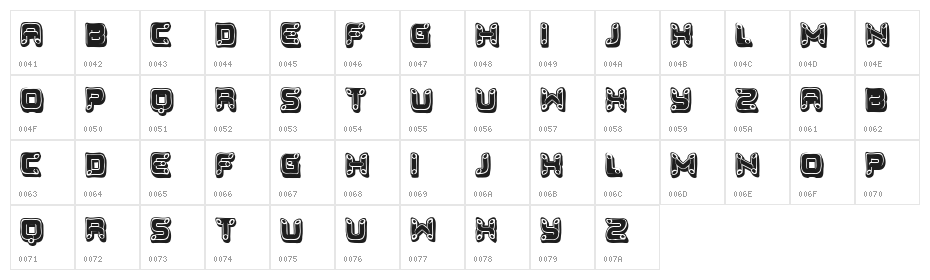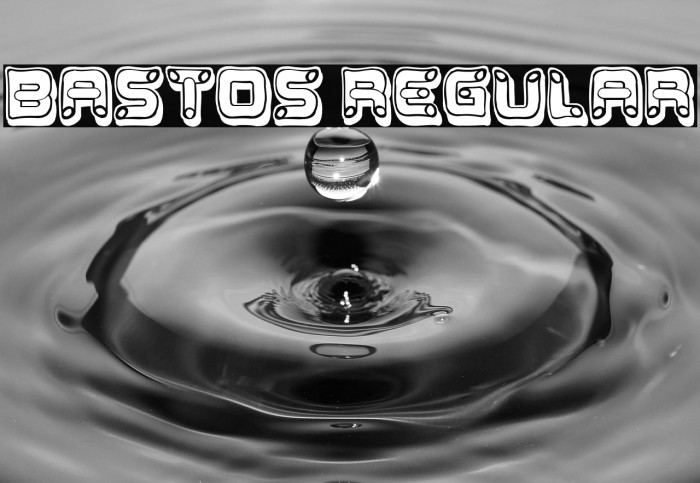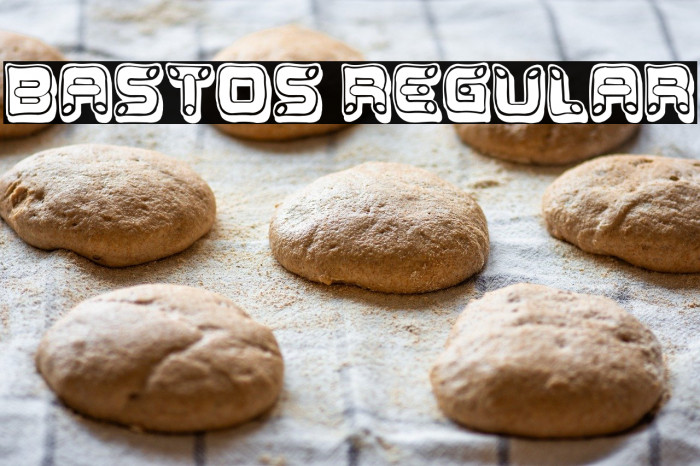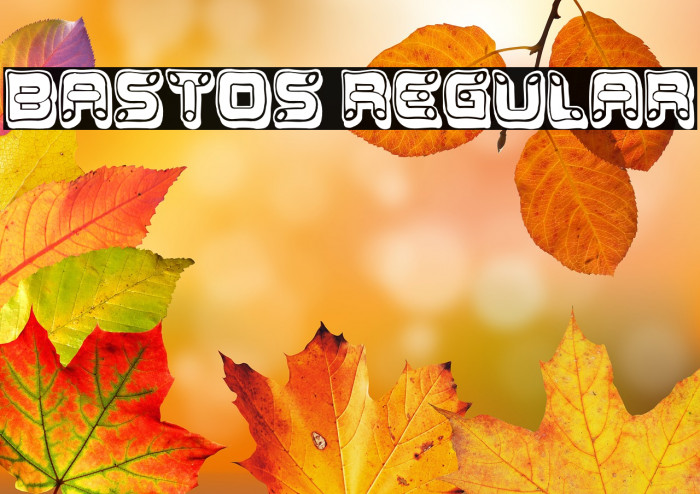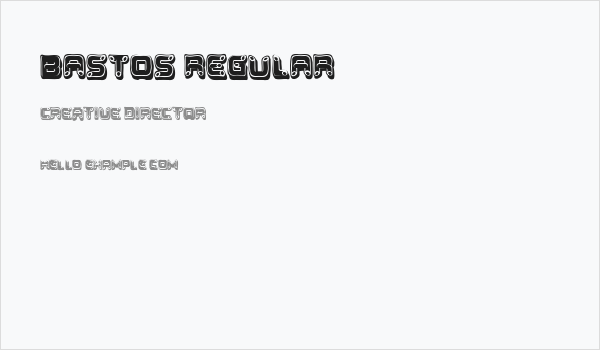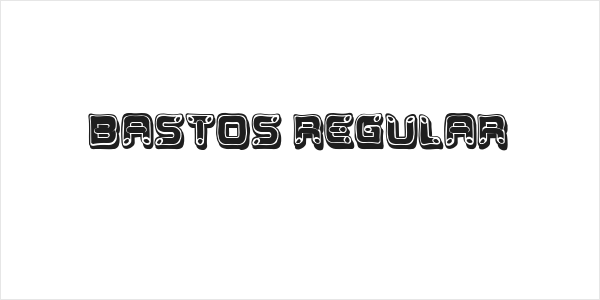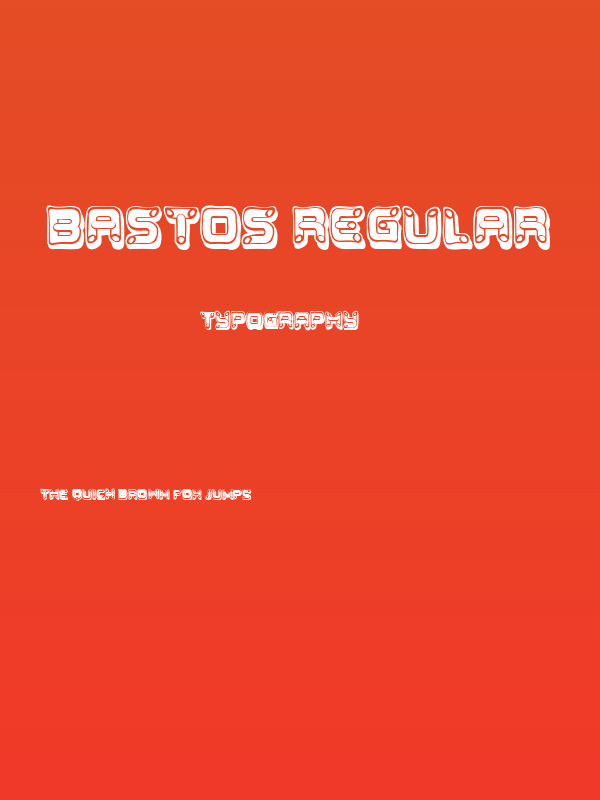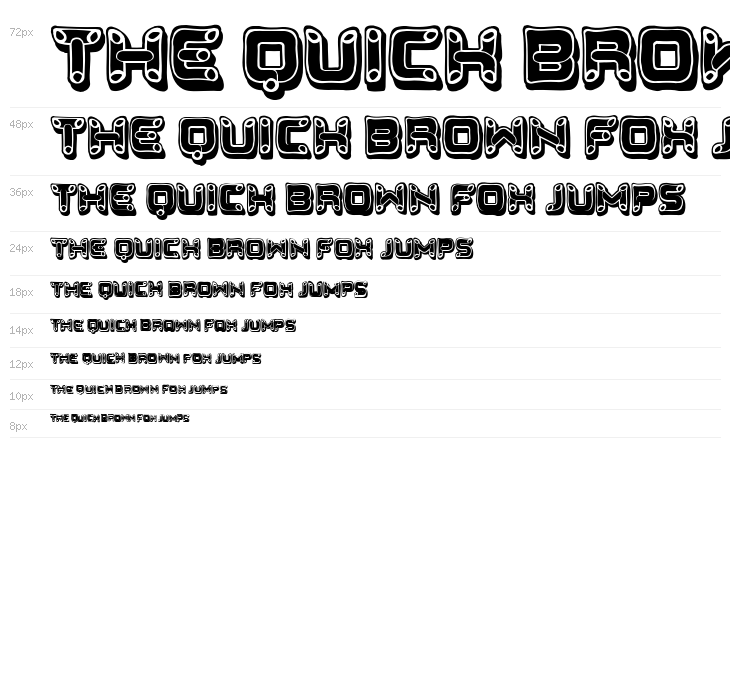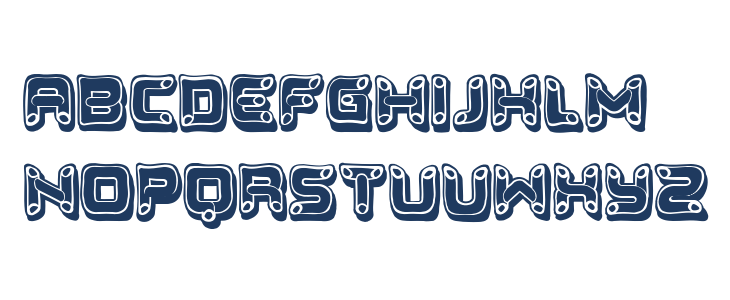
Bastos Regular Font
Bastos Regular Description
This font features a bold and playful design with a unique outline style that incorporates circular elements within each character. The letters are uppercase and have a consistent thickness, creating a strong visual impact. The rounded edges and internal dots give it a futuristic and tech-inspired appearance, making it stand out in any design. The font's geometric structure is both modern and decorative, suitable for eye-catching headlines or creative projects. Its distinct style is perfect for conveying a sense of innovation and creativity.
| Proposed Projects | Ideal for tech-themed posters, innovative branding, and creative advertising. |